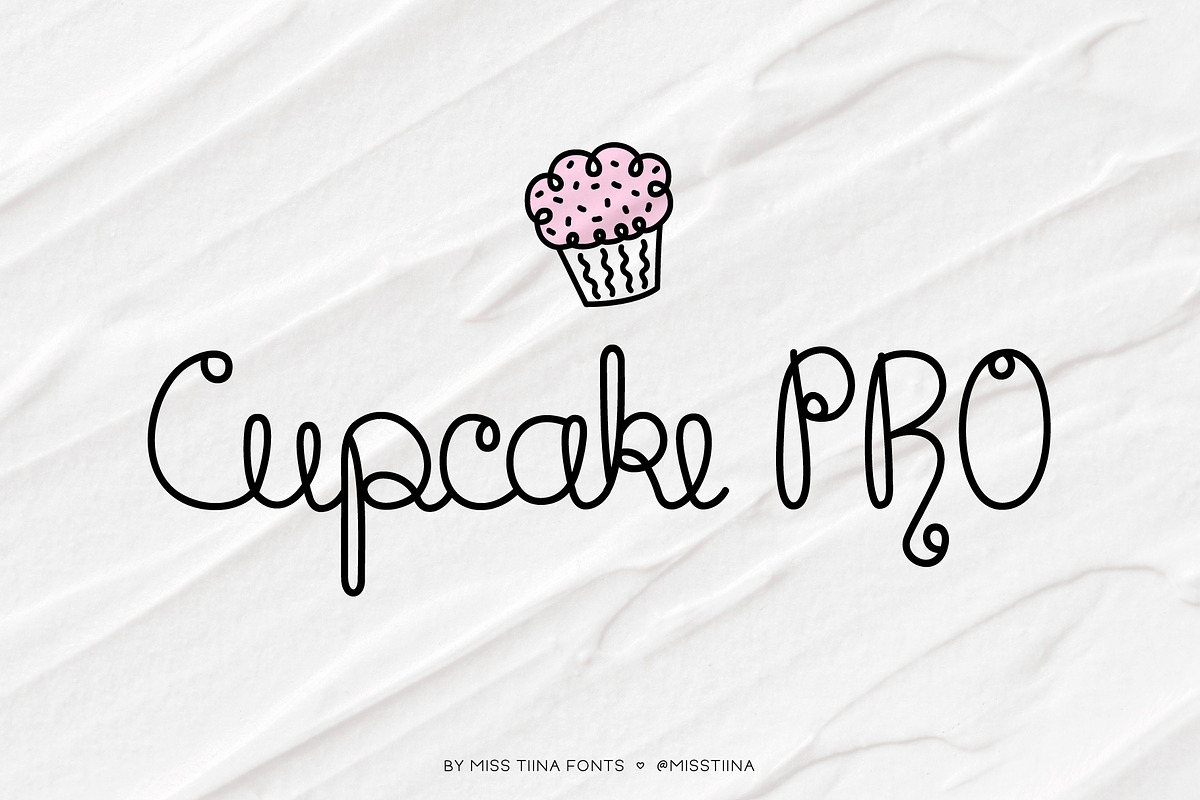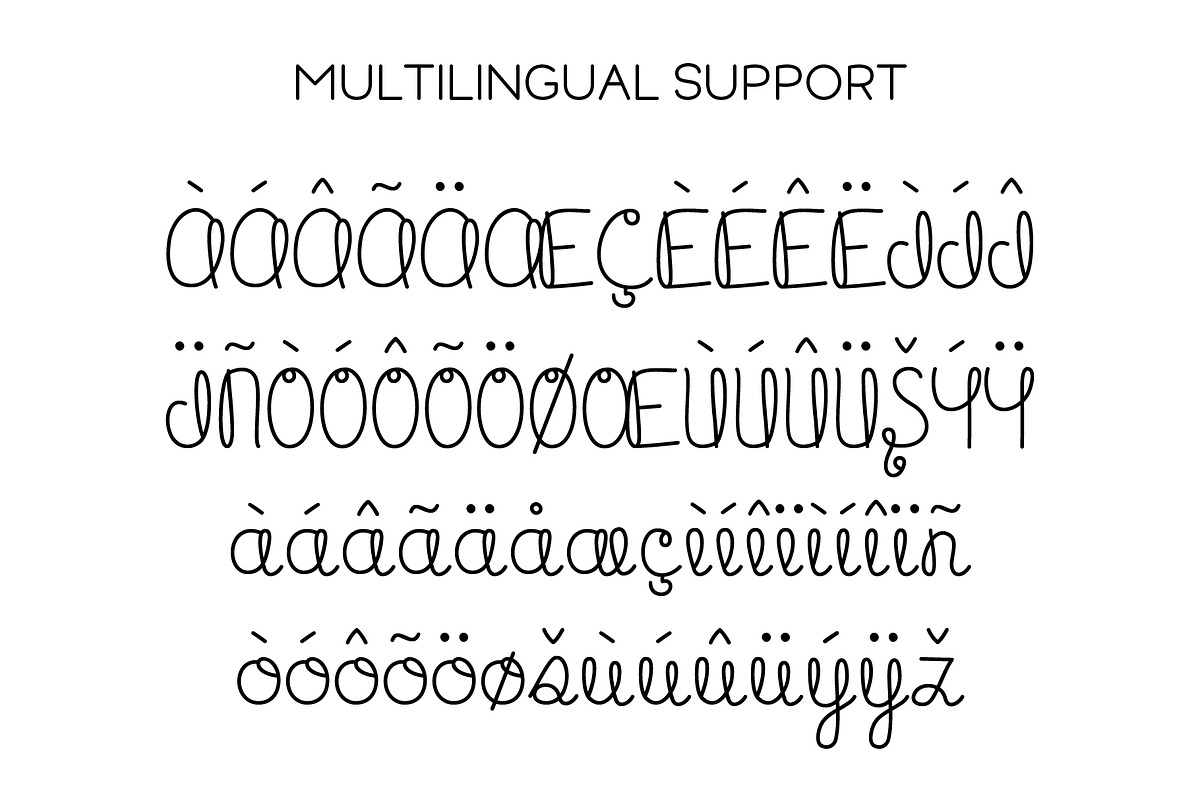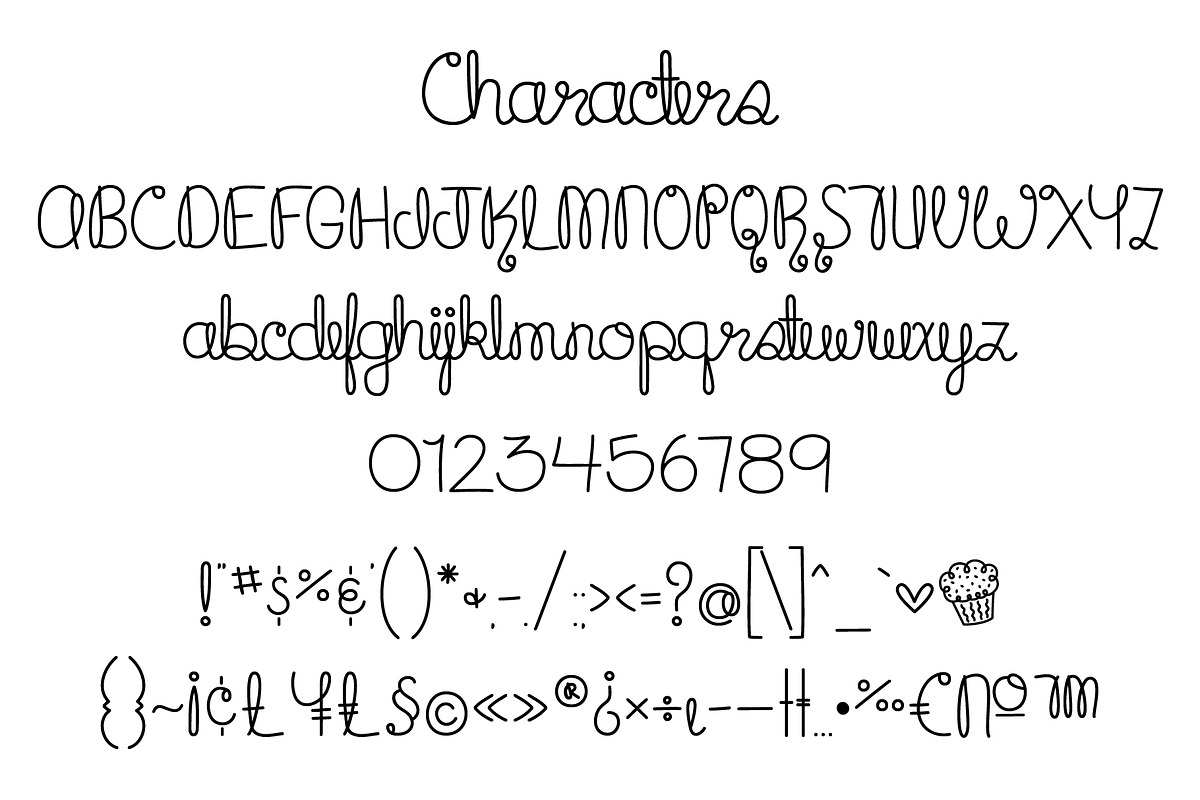
Cupcake PRO Script Font
Cupcake is that type of font that looks great in just about any situation, except the “too-formal” ones. Let this fun handwritten font add friendliness and charm to your restaurant’s menu, kitchen, cookbook, or anything else that’s not food-related.